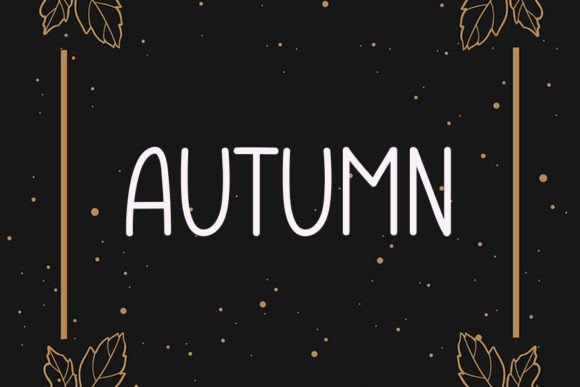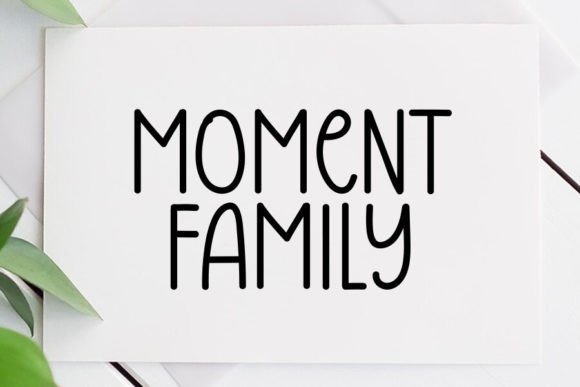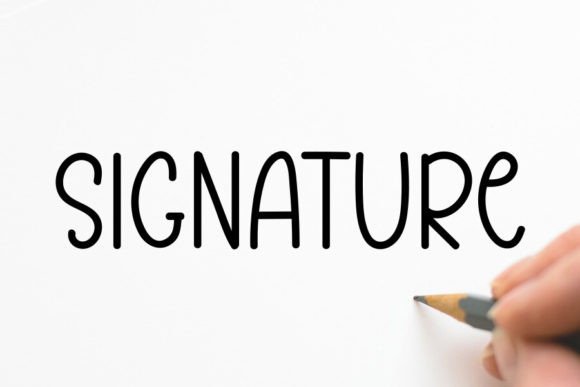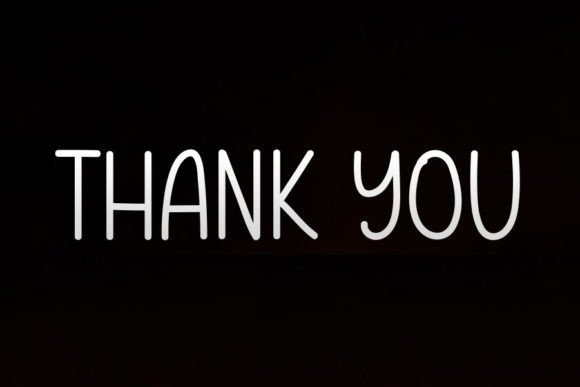
The Blackberry Font: A Simple yet Versatile Handwritten Delight
I’ll never forget the time I was working on a greeting card project for a client’s birthday. I had all the design elements in place – the colors, the graphics, the overall aesthetic – but something was missing. The font I had chosen just didn’t feel right. It was too formal, too fancy, too… well, not quite right. That’s when I stumbled upon the Blackberry font. ✨
This simple handwritten font has a wide spectrum of applications, ranging from greeting cards to headlines, and it’s guaranteed to add a simple and natural feel to your next project! In this article, I’ll share my experience with Blackberry, its features, and how to make the most of it in various design platforms.
- ✅ Simple and easy to read: Blackberry’s clean lines and straightforward design make it perfect for body text and headlines.
- ✨ Versatile: This font works well in a variety of contexts, from digital designs to print materials.
- 💡 Highly legible: Even at small sizes, Blackberry remains clear and easy to read.
While Blackberry is an excellent font, it’s not without its quirks. 🤔 For instance:
- ⚠️ Limited character set: Blackberry might not have all the special characters or glyphs you need for a specific project.
- ⚠️ Not ideal for body text in long documents: While legible, Blackberry might not be the best choice for extensive reading due to its informal feel.
The Story Behind Blackberry
Blackberry was designed with the intention of creating a simple, yet versatile font that could be used in a variety of contexts. The designer aimed to craft a font that felt approachable and natural, making it perfect for designs that require a personal touch.
| Font Name | Blackberry Font |
| Author | cans studio |
Q: What is the Blackberry font?
A: Blackberry is a simple handwritten font designed for a wide range of applications, from greeting cards to headlines.